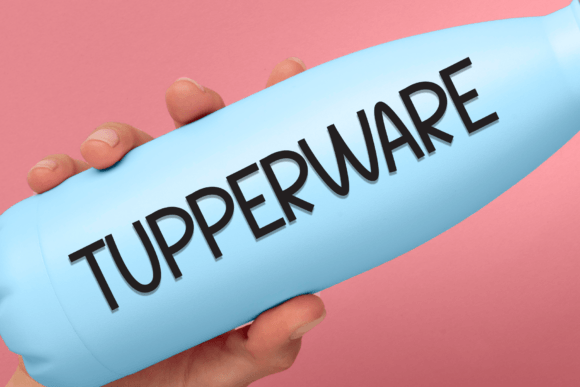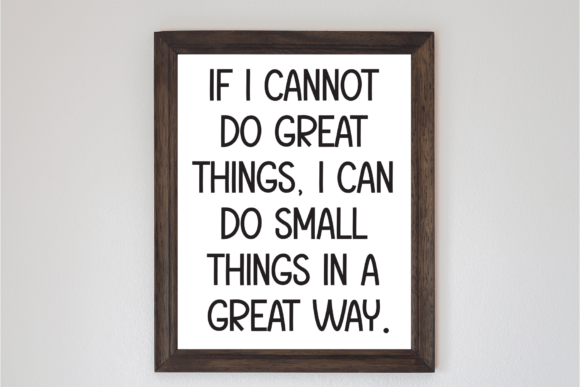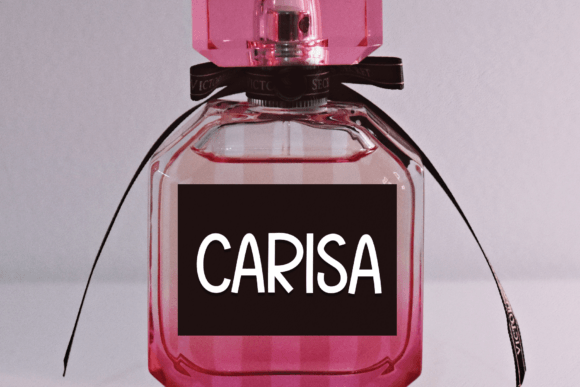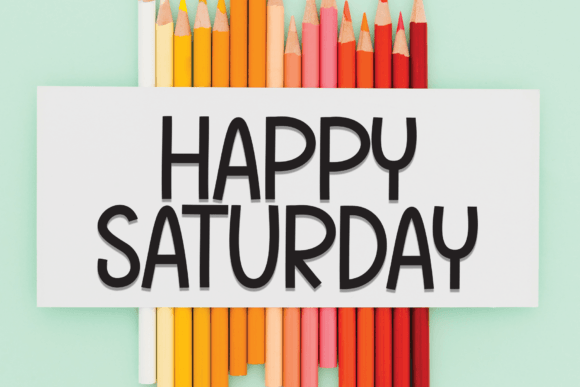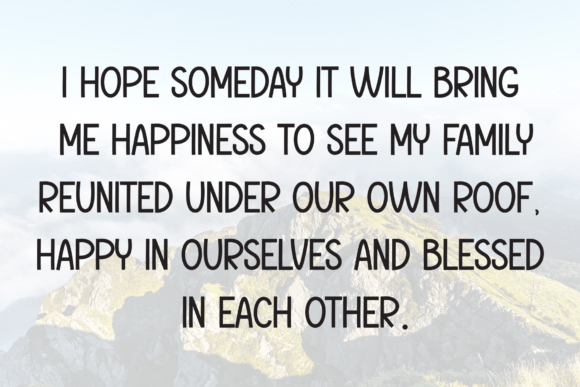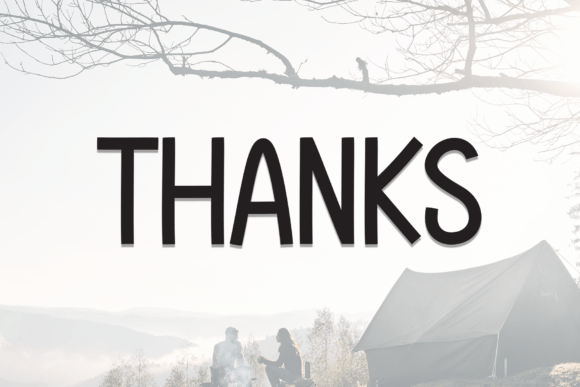
Discover the Charm of Camping Font: A Delightful Handwritten Display Font
I’ll never forget the design project that led me to discover the Camping font. I was working on a whimsical wedding invitation for a close friend, and I was struggling to find the perfect font that captured the playful yet elegant vibe of their special day. That’s when I stumbled upon Camping, and it instantly became my go-to font for the project. With its affable and whimsical style, Camping perfectly encapsulated the joy and intimacy of the occasion.
A Personal Review of Camping Font
So, what makes Camping font so special? Let’s dive into the details!
What I Love About Camping Font ✨
- ✅ Its unique, handwritten display style adds a touch of warmth and personality to any design project
- ✅ The font’s whimsical feel makes it perfect for creating playful and eye-catching titles, headings, and invitations
- ✅ Camping font beautifully balances functionality and artistic flair, making it suitable for a wide range of design applications
- ✅ The font’s elegant and refined look also makes it suitable for more formal projects, such as wedding invitations and event branding
While Camping font is an excellent choice for many design projects, there are a few minor quirks to be aware of:
- ⚠️ The font’s handwritten style may not be suitable for very formal or corporate design projects
- ⚠️ Some characters, such as the uppercase letters, may appear a bit more condensed than others
The Story Behind Camping Font
Camping font was designed with the intention of capturing the essence of outdoor adventures and the joy of spending time with loved ones. The font’s creator aimed to create a unique and whimsical font that would evoke feelings of warmth and playfulness.